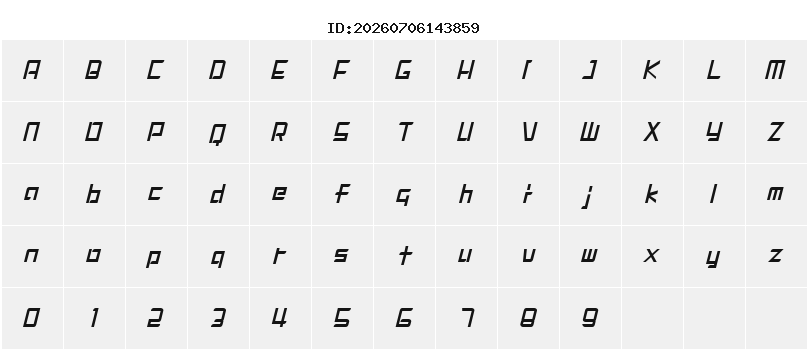
DigiMode1988 Preview
• Font Name: DigiMode1988
• Full Font Name: DigiMode1988
• PostScript Name: DigiMode1988
About DigiMode1988.ttf
DigiMode1988.ttf is a modern, elegant sans-serif font designed for ultimate readability and visual harmony. Perfect for branding, headlines, web design, and print materials.